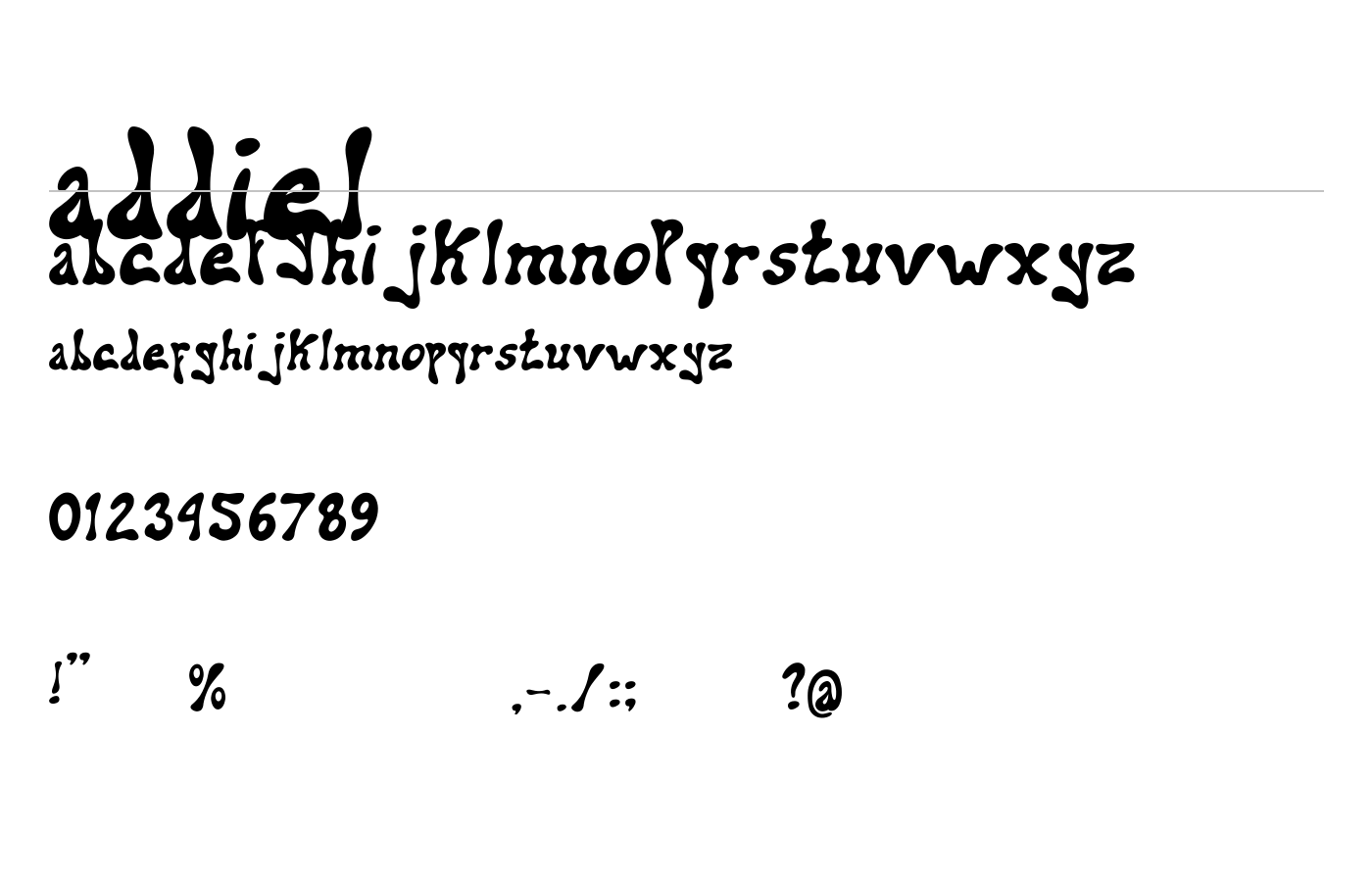
Addiel is a playful, hand-drawn serif font with quirky, uneven shapes and a slightly wavy stroke style that gives it a lively, organic feel. Its irregular letterforms and moderate contrast make it ideal for informal branding, creative projects, and eye-catching headlines where a unique, artistic touch is desired. This font works well in contexts that want to stand out with personality and charm, such as boutique logos, children’s books, or quirky editorial designs.
addiel Font
About addiel Font
| Designer | Carlos Addiel Gaxiola Soto |